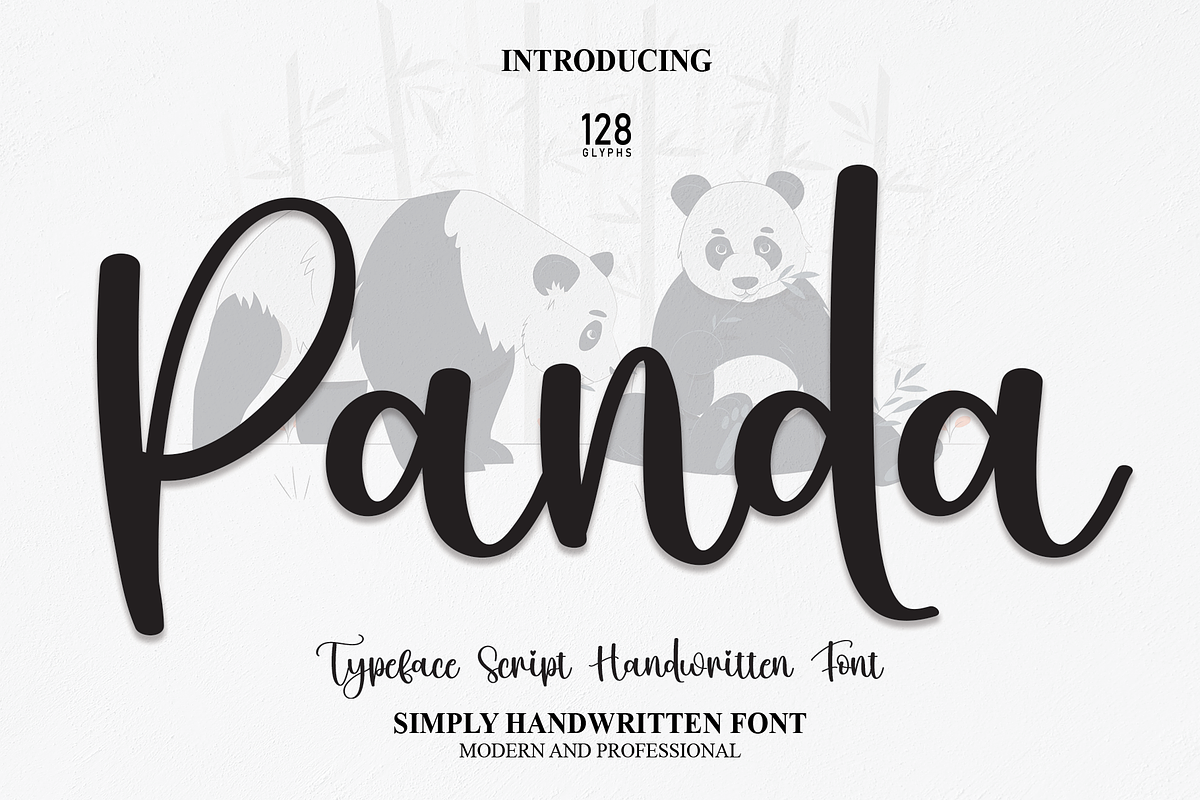
Panda Script Font Free Download
Panda Script Font Free Download is a charming and playful handwritten script typeface that blends elegant curves with a friendly, approachable feel. Ideal for projects that require a soft, warm touch, Panda Script is perfect for greeting cards, invitations, logos, branding, and social media graphics that need a personal, joyful style.
With its smooth, flowing strokes and rounded letterforms, Panda Script evokes a sense of warmth and fun. Whether you're designing for children’s products, casual events, or creative branding, this font adds a touch of whimsy and elegance.